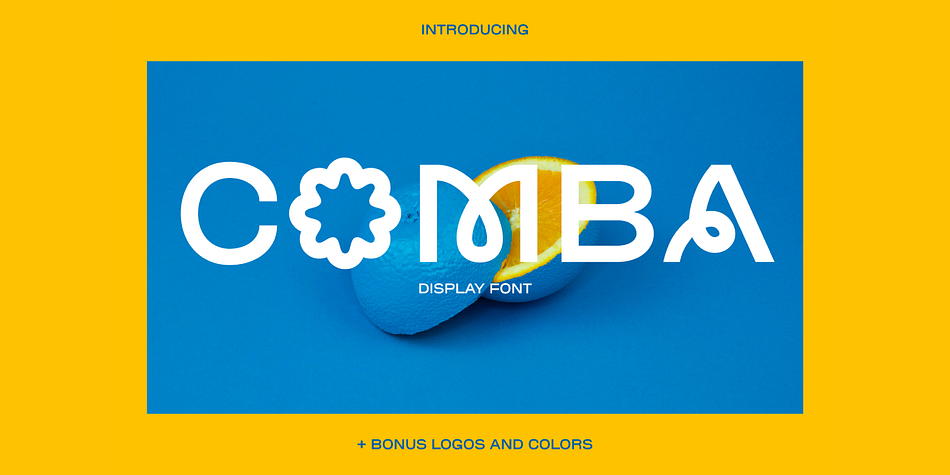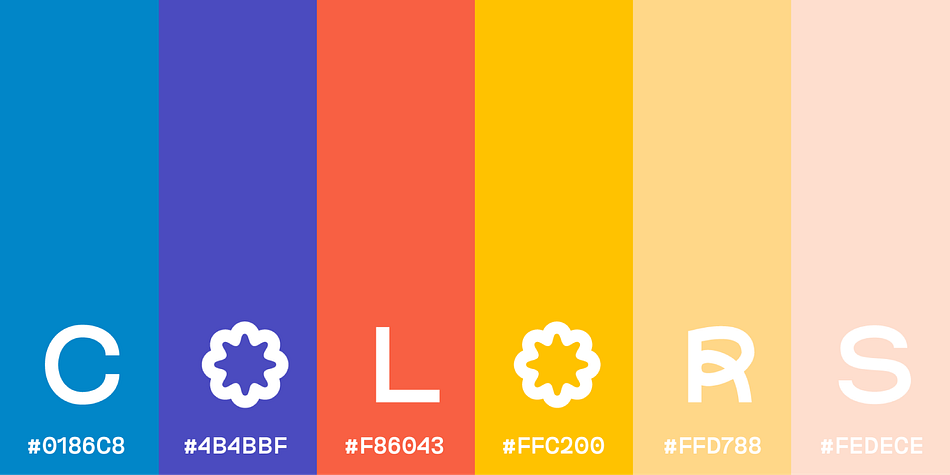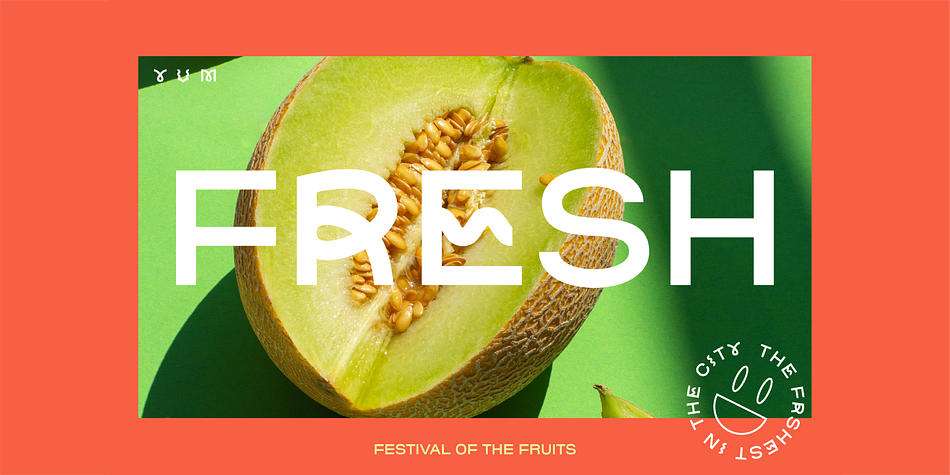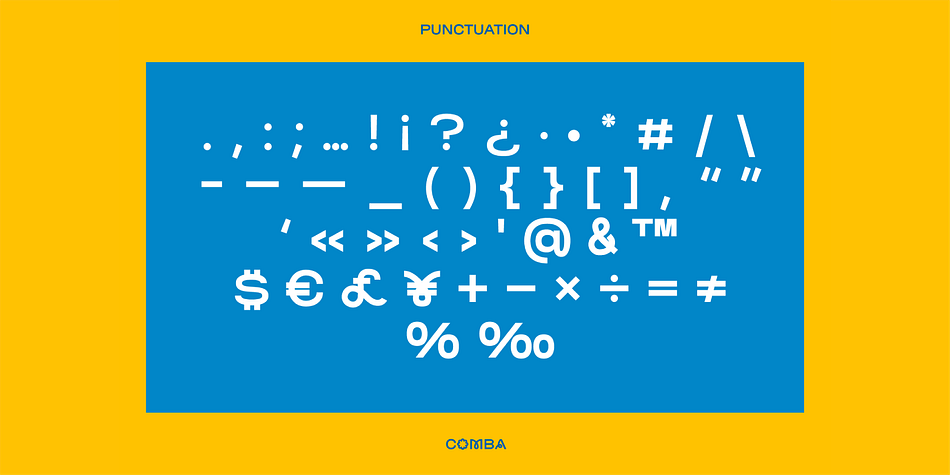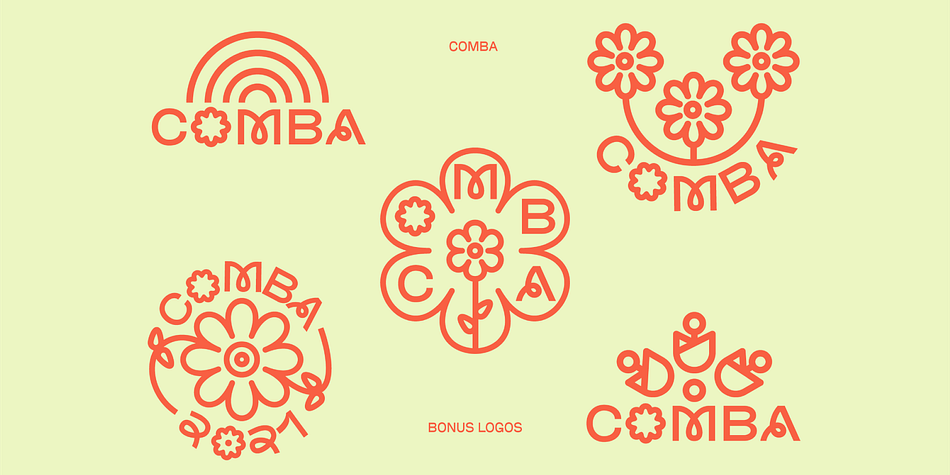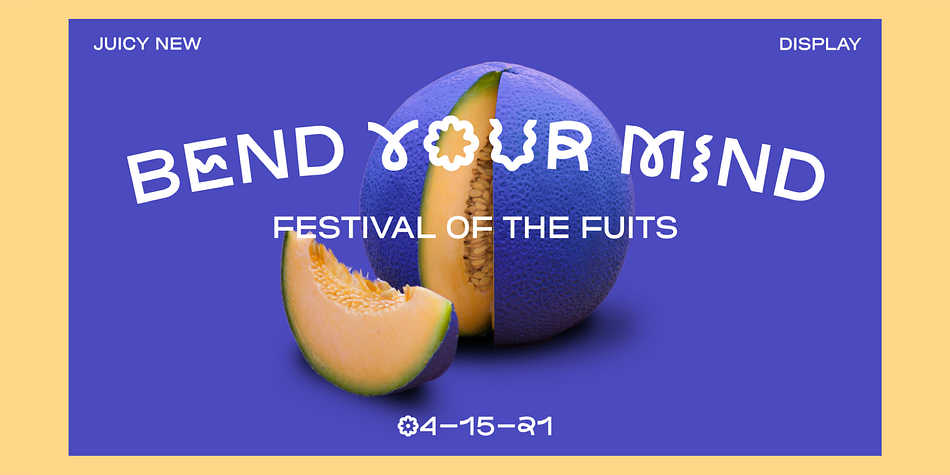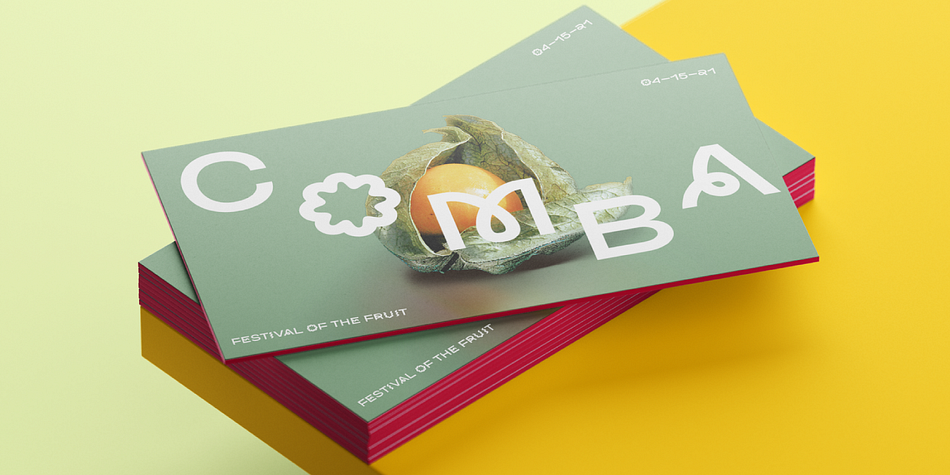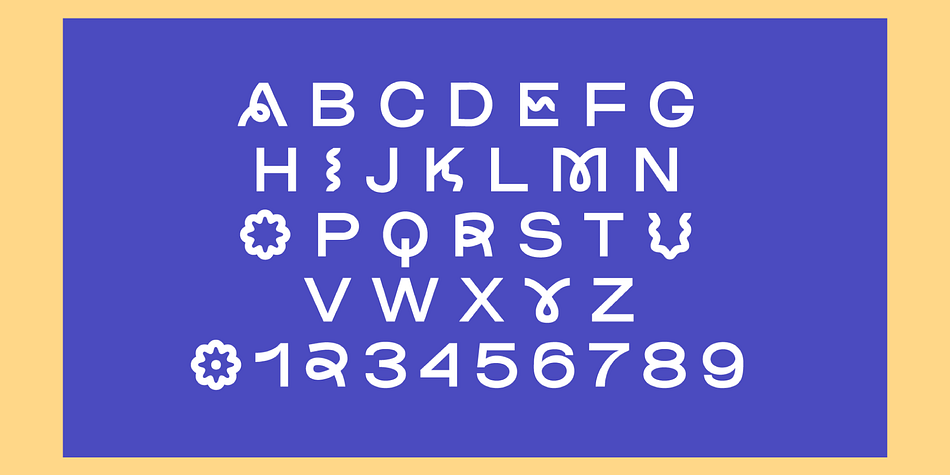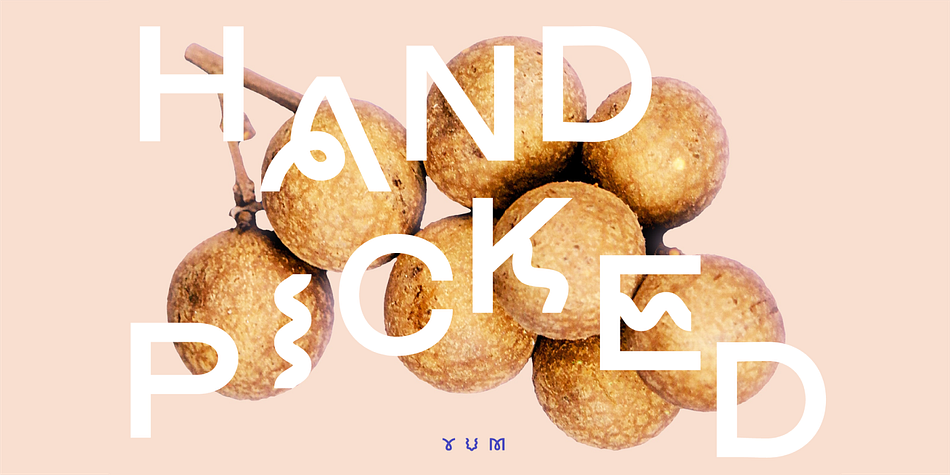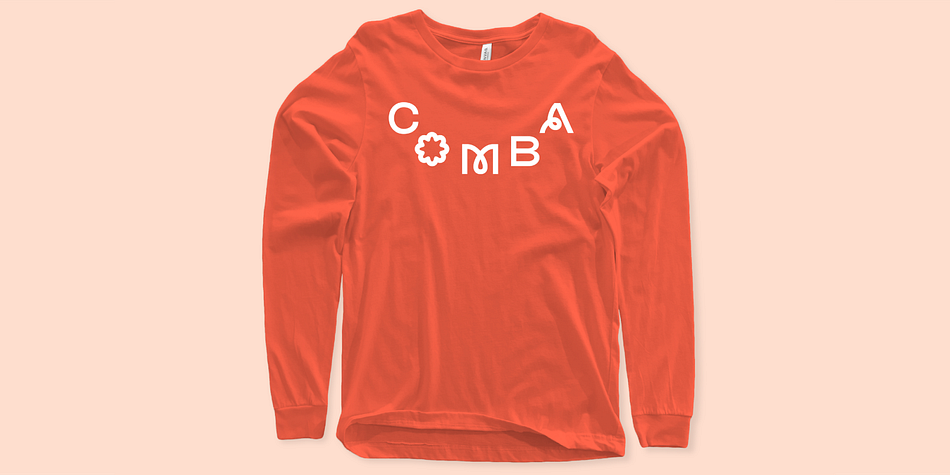
Designed by Harbor Bickmore, COMBA is a display sans and novelty font family published by That That Creative.
COMBA is a quirky all caps display font that is perfect for display type and contemporary branding. It has just enough eye-catching letters to pull the reader in and make them smile. COMBA also comes with 5 logo templates and a color palette.